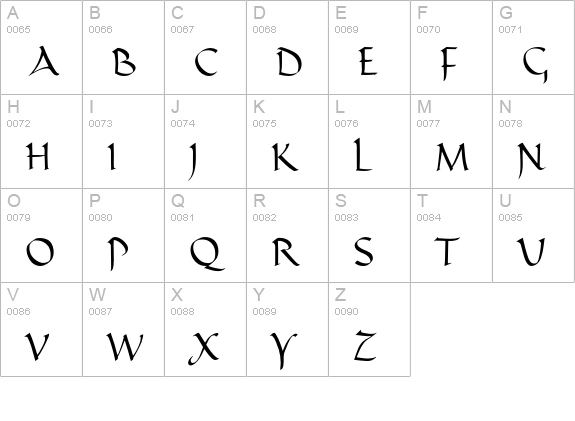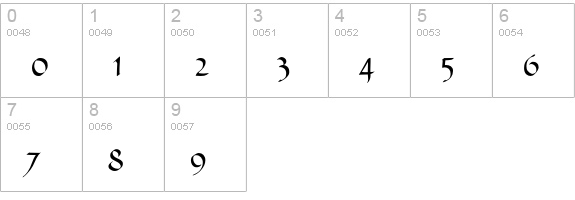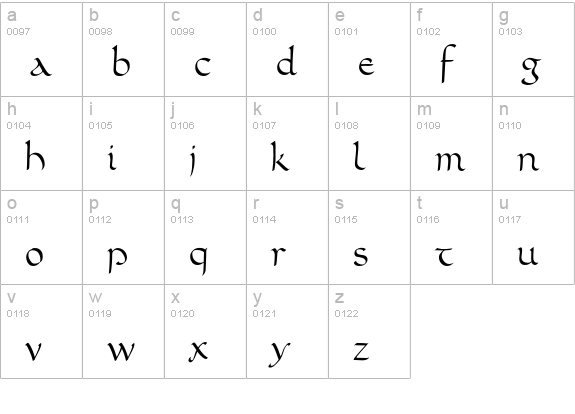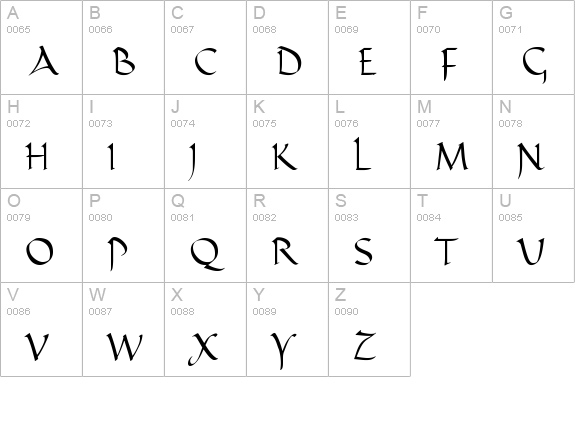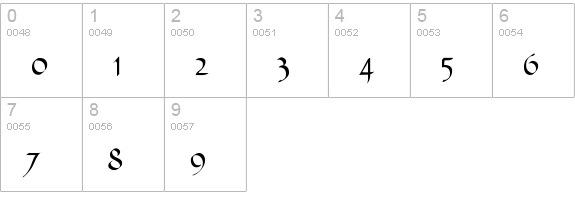
Madonna Font Details
Introducing Madonna font, a stunning typeface that effortlessly combines elegance and modernity. With its sleek lines and intricate details, this font exudes a sense of sophistication that is perfect for any design project. But what sets Madonna font apart is not just its aesthetic appeal, but also its accessibility. This font is available for free, allowing designers and creators from all walks of life to bring their visions to life without any constraints. Whether you're working on a logo, branding, or any other graphic design project, Madonna font is sure to elevate your work to new heights. Its versatility ensures that it can be used in a variety of contexts, from sleek corporate designs to playful and whimsical creations. And the best part? Madonna font is freely available to download at FontsMarket.com. This means that you can easily add this beautiful typeface to your collection, without having to worry about breaking the bank. So why wait? Embrace the beauty and versatility of Madonna font today and let your creativity soar. Download it for free at FontsMarket.com and witness the transformative power of this remarkable typeface.